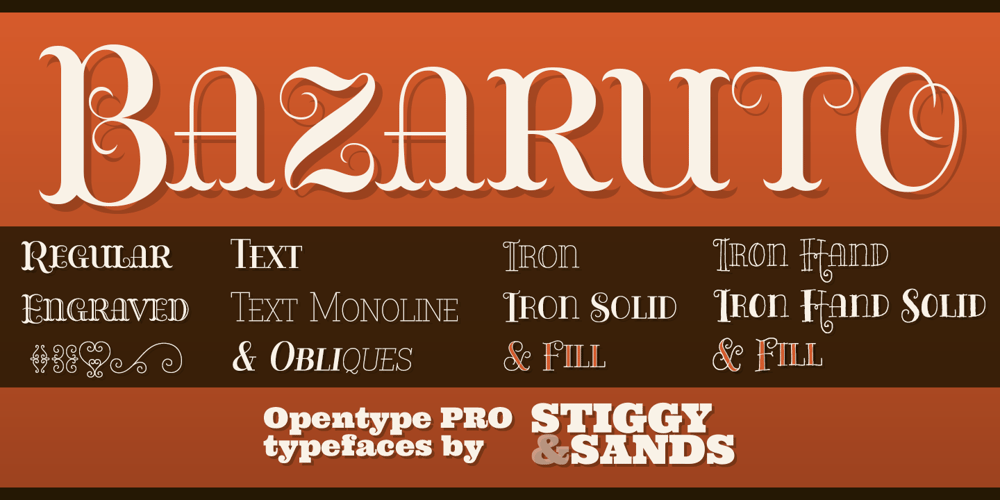
Bazaruto Font Family was designed by Jim Lyles, Brian J. Bonislawsky and published by Stiggy & Sands. Bazaruto contains 7 styles and family package options. Our Bazaruto family was inspired by an old fashioned specimen from “Letters and Lettering” by Carlyle & Oring, but you’ll find the inspiration has been greatly expounded upon. What began as an all Capitals specimen has been fleshed out to an extended full character set with many features and variants from the original design. Bazaruto has been an exercise in typographic evolution. The original Art Deco style spawned an Engraved version, then a Bodoni-esque text style, and then a monoline version of that text style (both of the latter complete with Obliques). But after that is when the real interpretations of form began with the development of the Iron fonts, playing off the original specimen having a visual flavor of wrought ironwork in them, and blending that into the Bodoni-esque typestyles. Lastly, a fast and loose hand drawn version of the Iron fonts and an ornaments font were created to add more variety and spunk to the family. The Bazaruto family is a visual grab bag of styles which all have an underlying harmony.